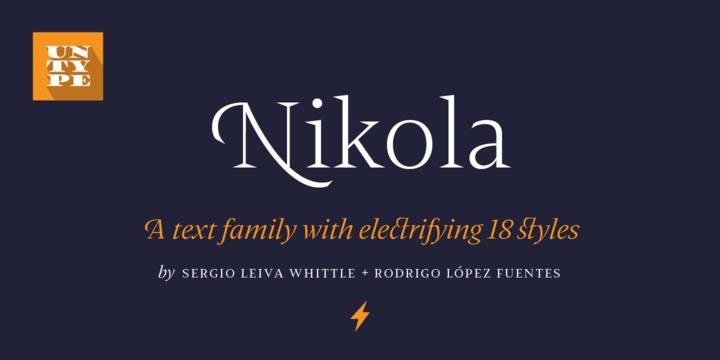
Nikola Font
Nikola Font is perfect for innovative tech companies, electrical engineering firms, scientific research institutions, energy technology brands, futuristic product packaging, innovation conference materials, STEM education programs, renewable energy campaigns, cutting-edge laboratory signage, and visionary inventor celebrations.
What makes Nikola Font so exciting is its extraordinary ability to channel the revolutionary spirit and electrifying genius of scientific innovation through letterforms that seem to spark with intellectual energy and pulse with the transformative power of breakthrough discoveries. This visionary typeface captures the essence of scientific brilliance and technological innovation with characters that radiate both intellectual intensity and pioneering determination. The font's electric design elements perfectly balance scientific precision with innovative creativity, creating an indispensable tool that communicates scientific excellence, innovative thinking, and revolutionary vision, making it essential for organizations and projects celebrating the transformative power of scientific research and the brilliant minds who dare to reimagine the possible through electrical innovation and technological advancement.
Nikola Font comes in multiple font families including Regular, Bold, Light, Italic, Bold Italic, Electric, Innovative, and Visionary variations. Each family member maintains the core scientific characteristics while offering different intensity levels and revolutionary approaches to suit various technology and innovation design requirements.
The innovative precision in Nikola Font makes it particularly effective for technology companies and research institutions where conveying both scientific credibility and innovative vision is crucial for inspiring confidence in breakthrough technologies and revolutionary scientific applications. Its electrifying letterforms work exceptionally well across all scientific and technology applications, from research facility signage to innovation conference materials, maintaining consistent scientific appeal while inspiring revolutionary thinking.
Scientific innovation professionals recognize how Nikola Font transforms ordinary technical communications into powerful celebrations of scientific brilliance and technological advancement. The typeface's electric character set includes special scientific symbols, electrical elements, and innovation indicators that enhance the overall visionary atmosphere of any science or technology-focused project.
For creative professionals serving technology innovators, research institutions, and scientific education organizations, Nikola Font serves as the perfect foundation for establishing memorable visual identities that capture the essential qualities of scientific excellence, electrical innovation, and visionary thinking that define successful brands advancing the frontiers of electrical engineering, energy technology, and the revolutionary scientific discoveries that continue to transform our understanding of electrical phenomena and technological possibilities.